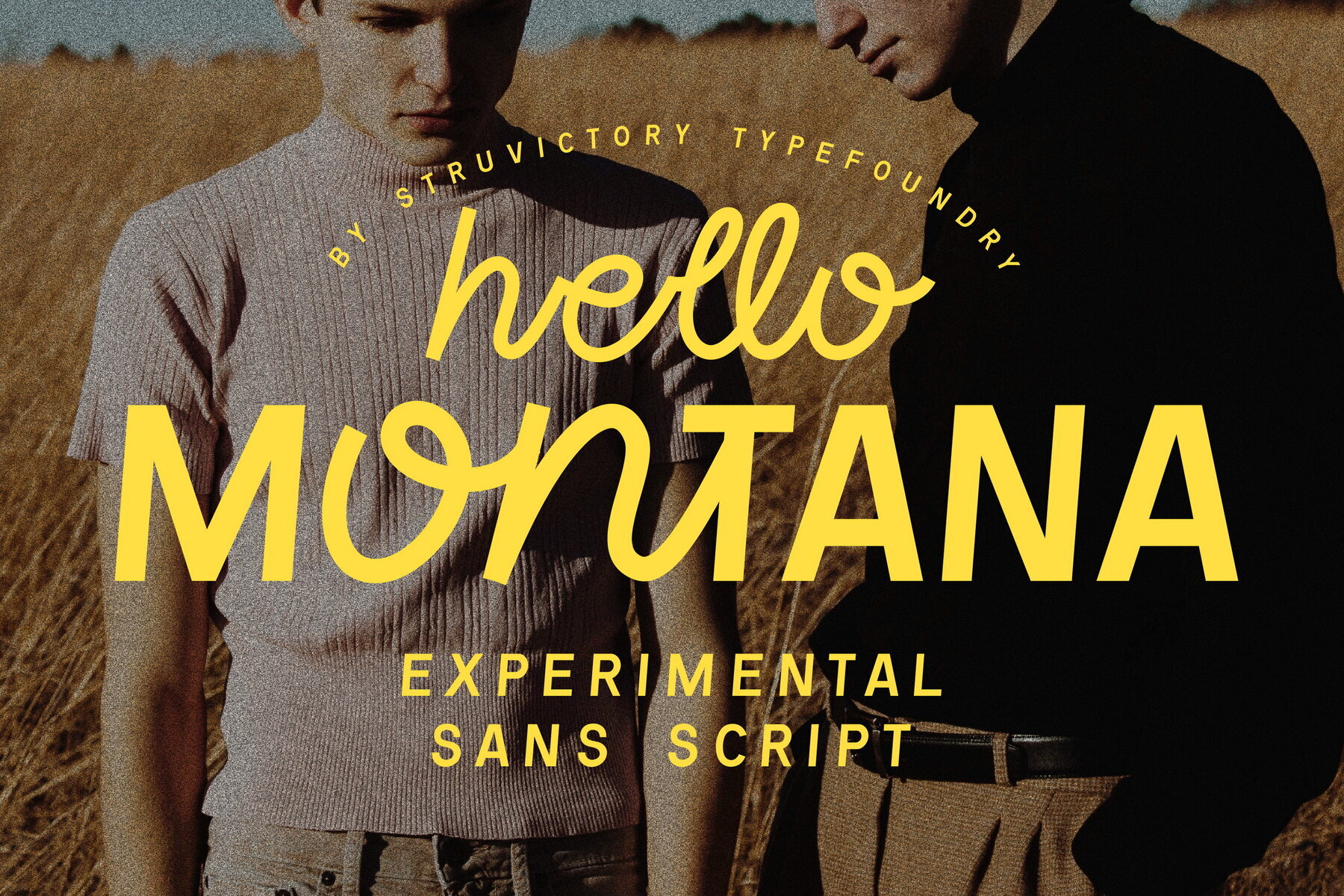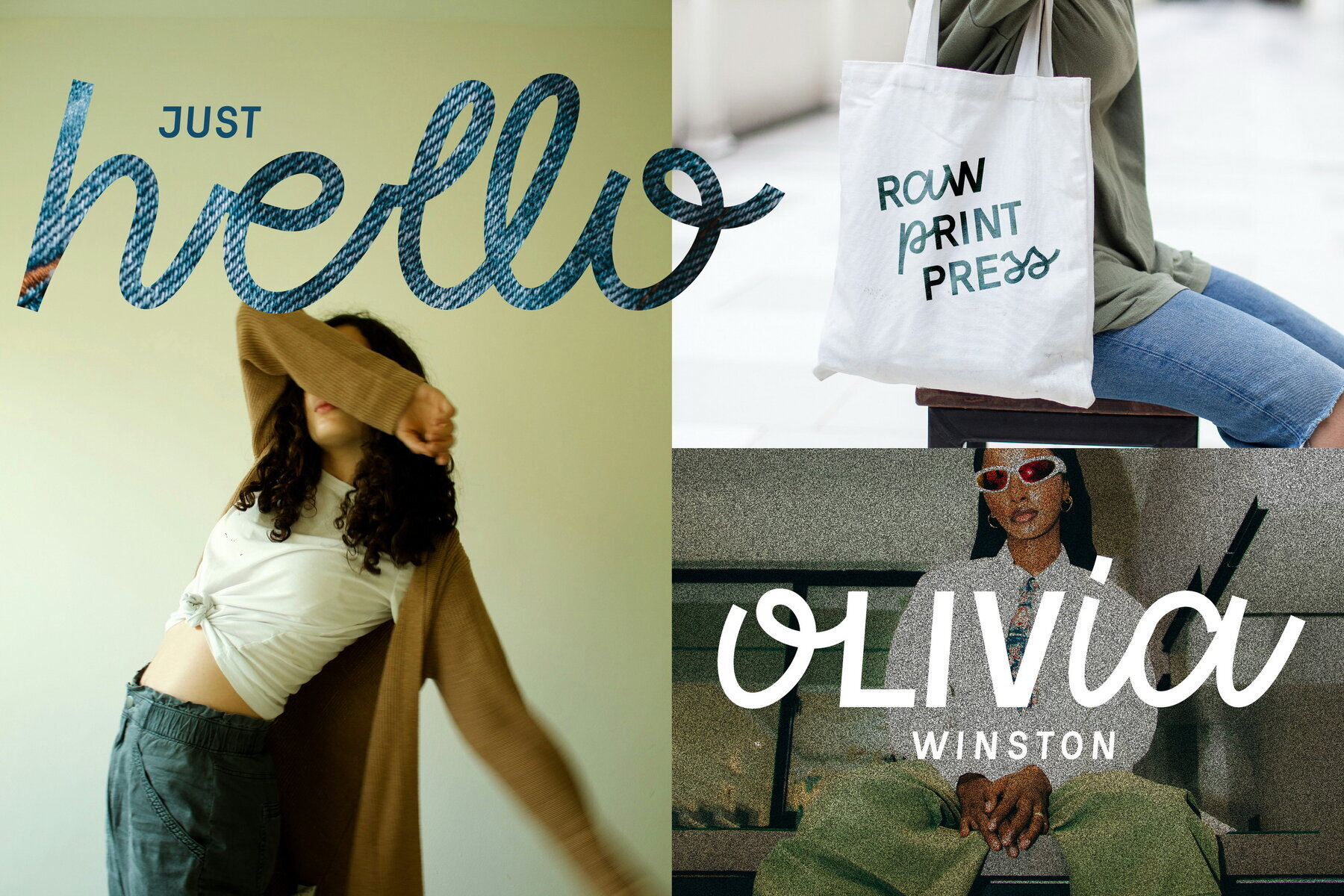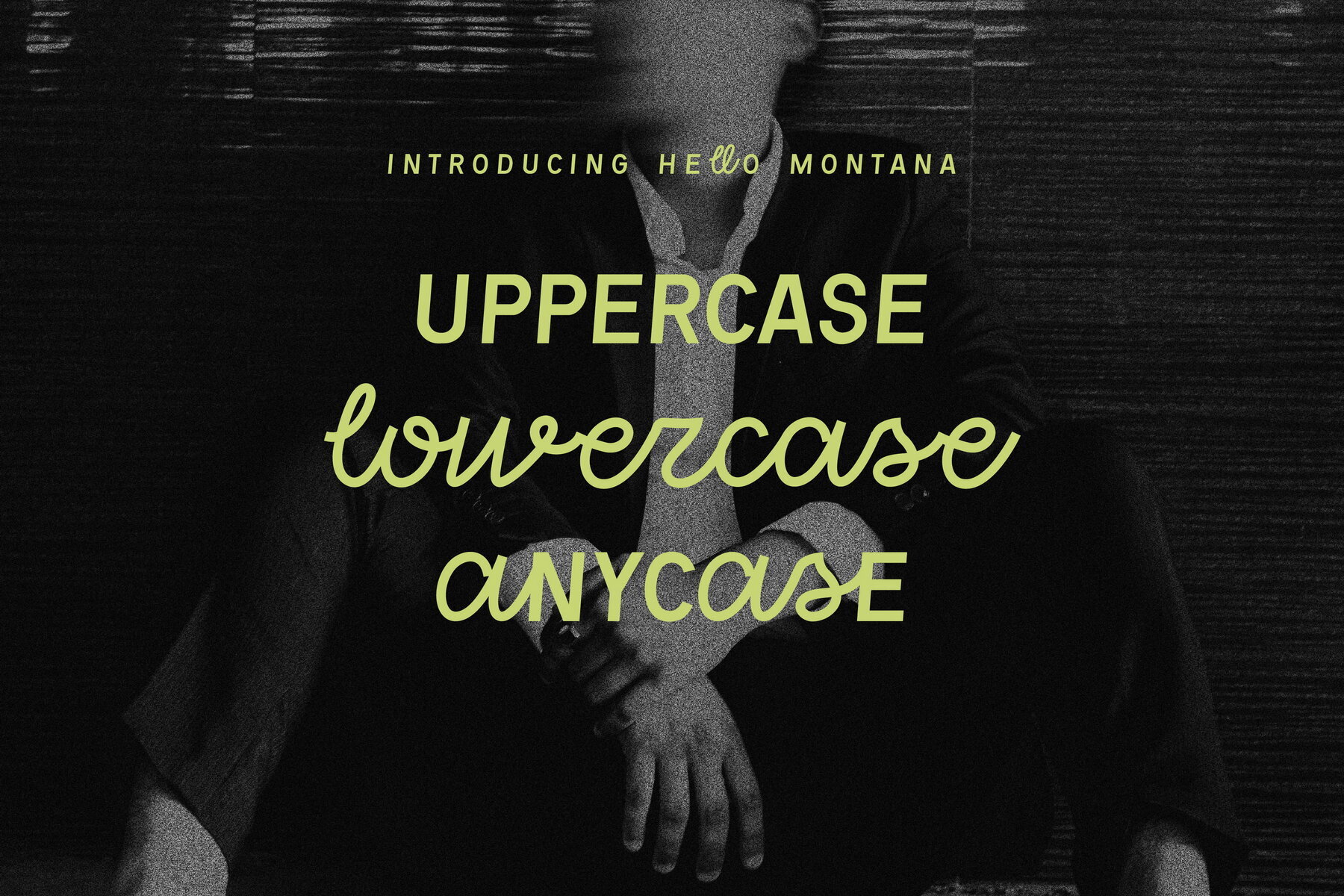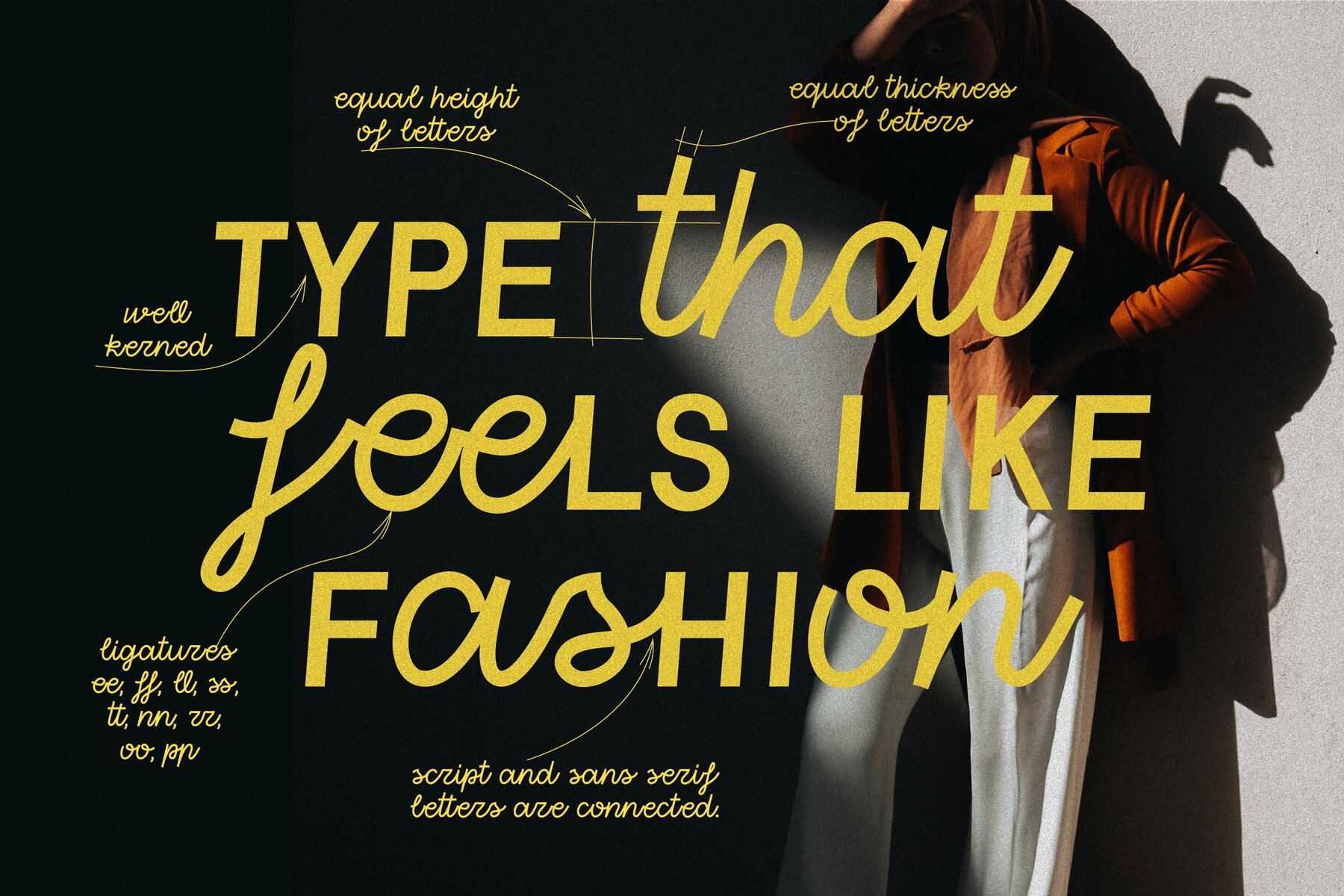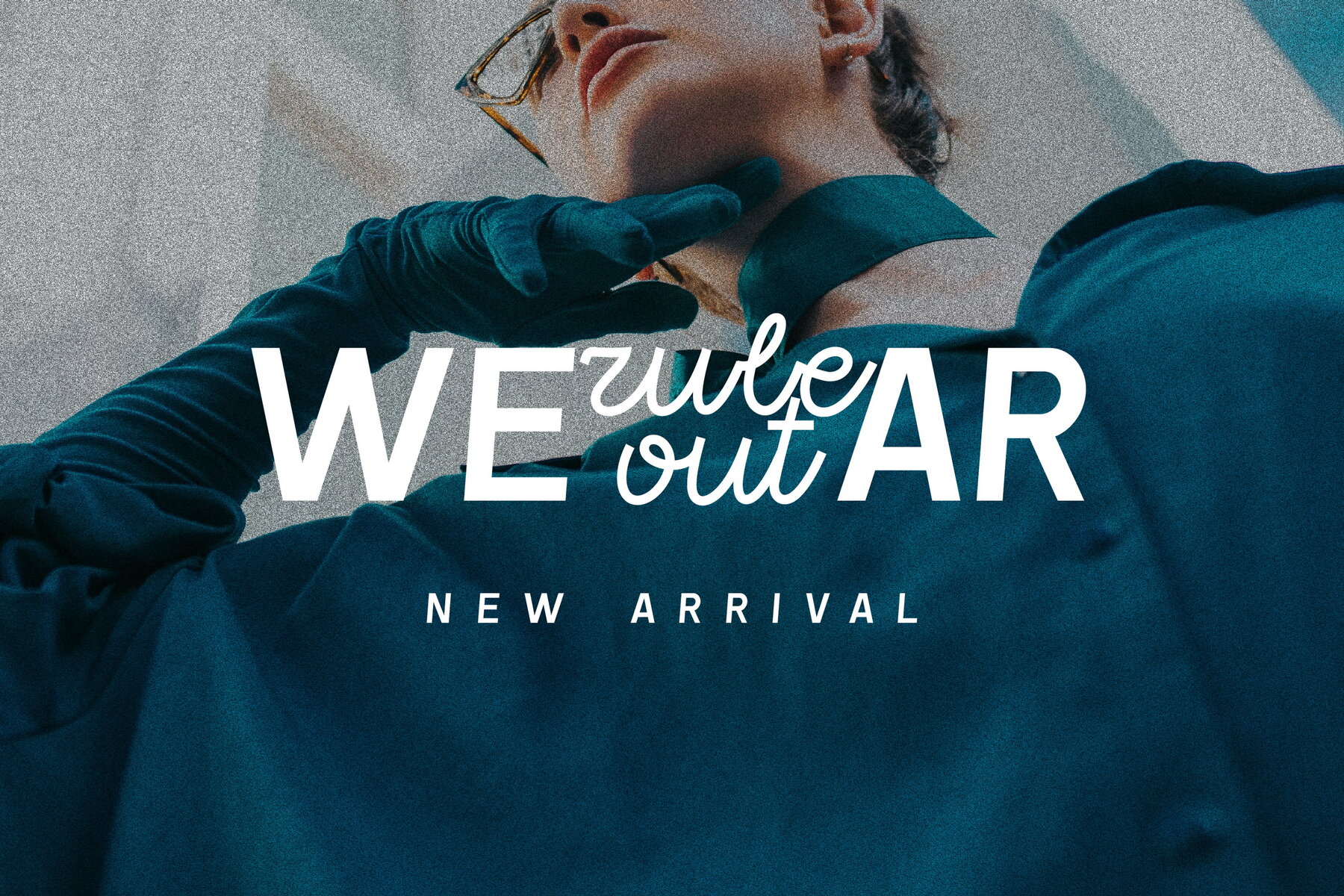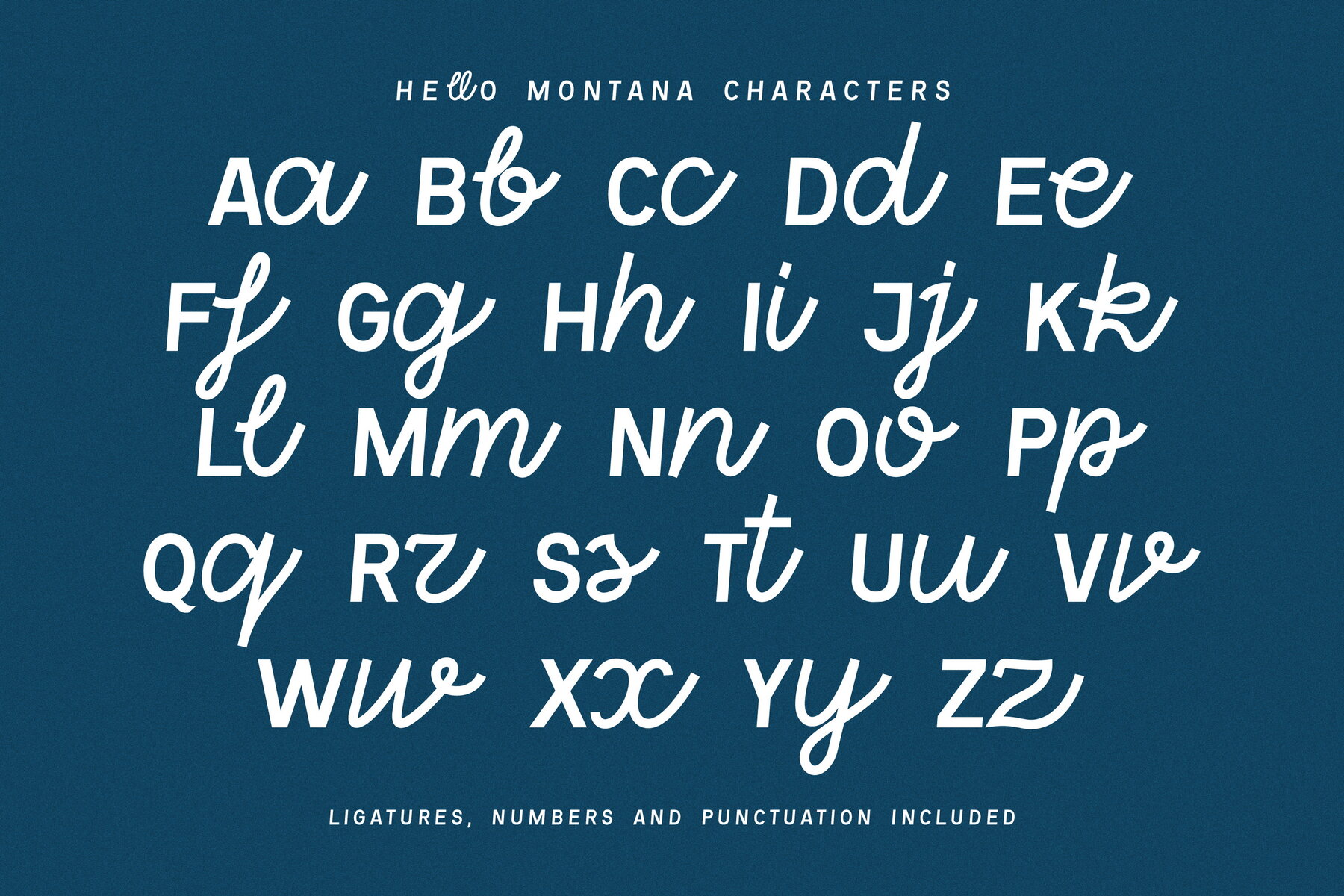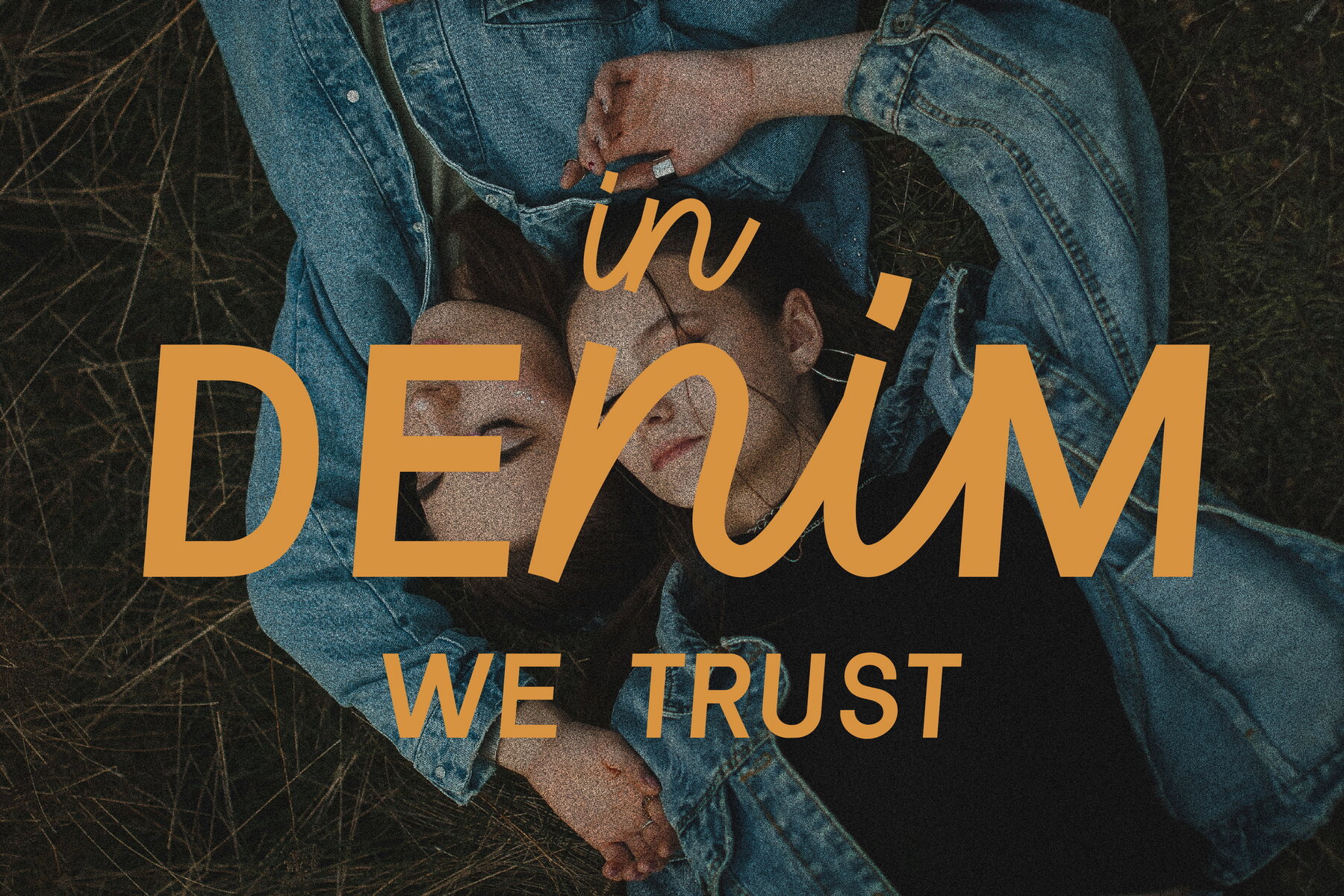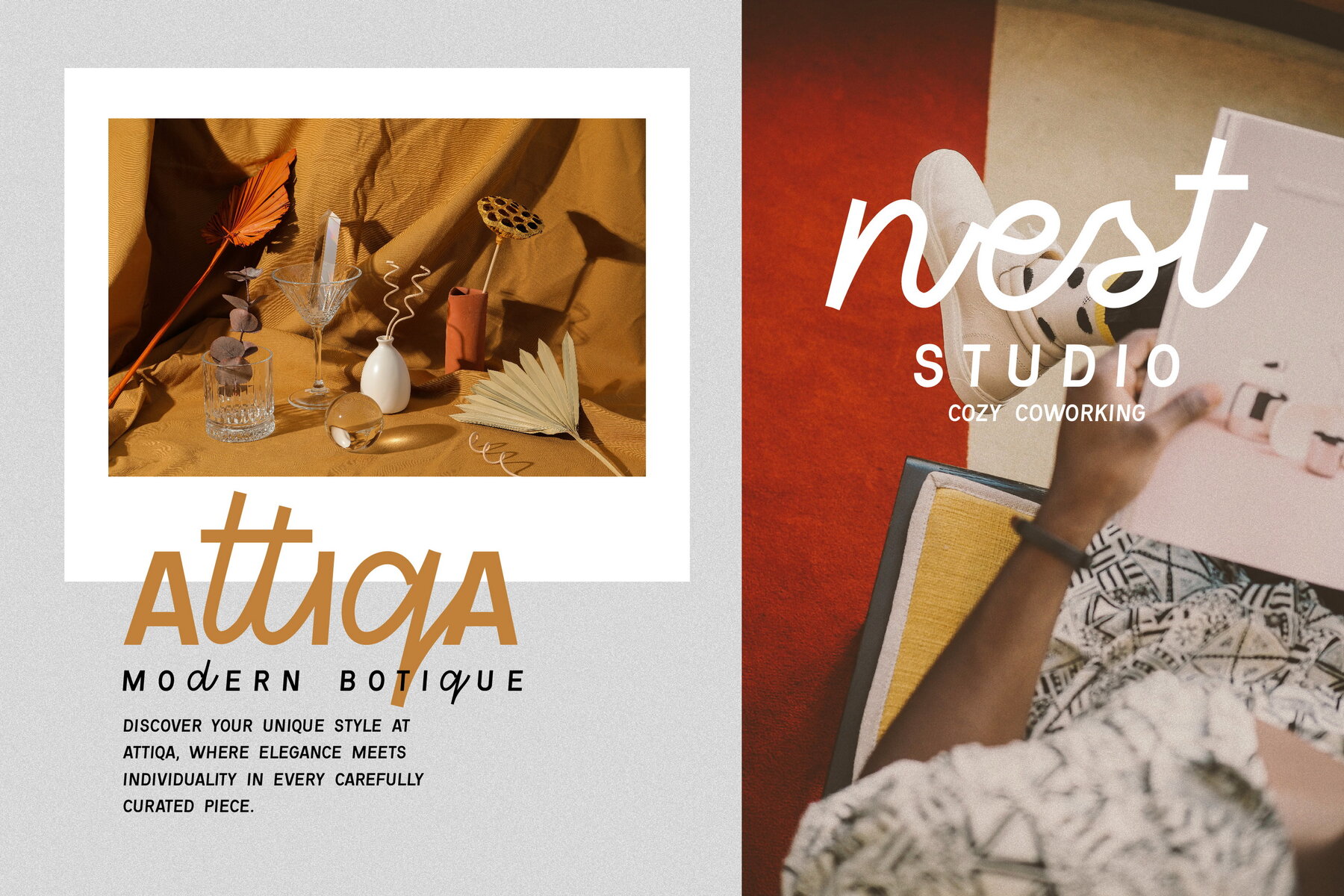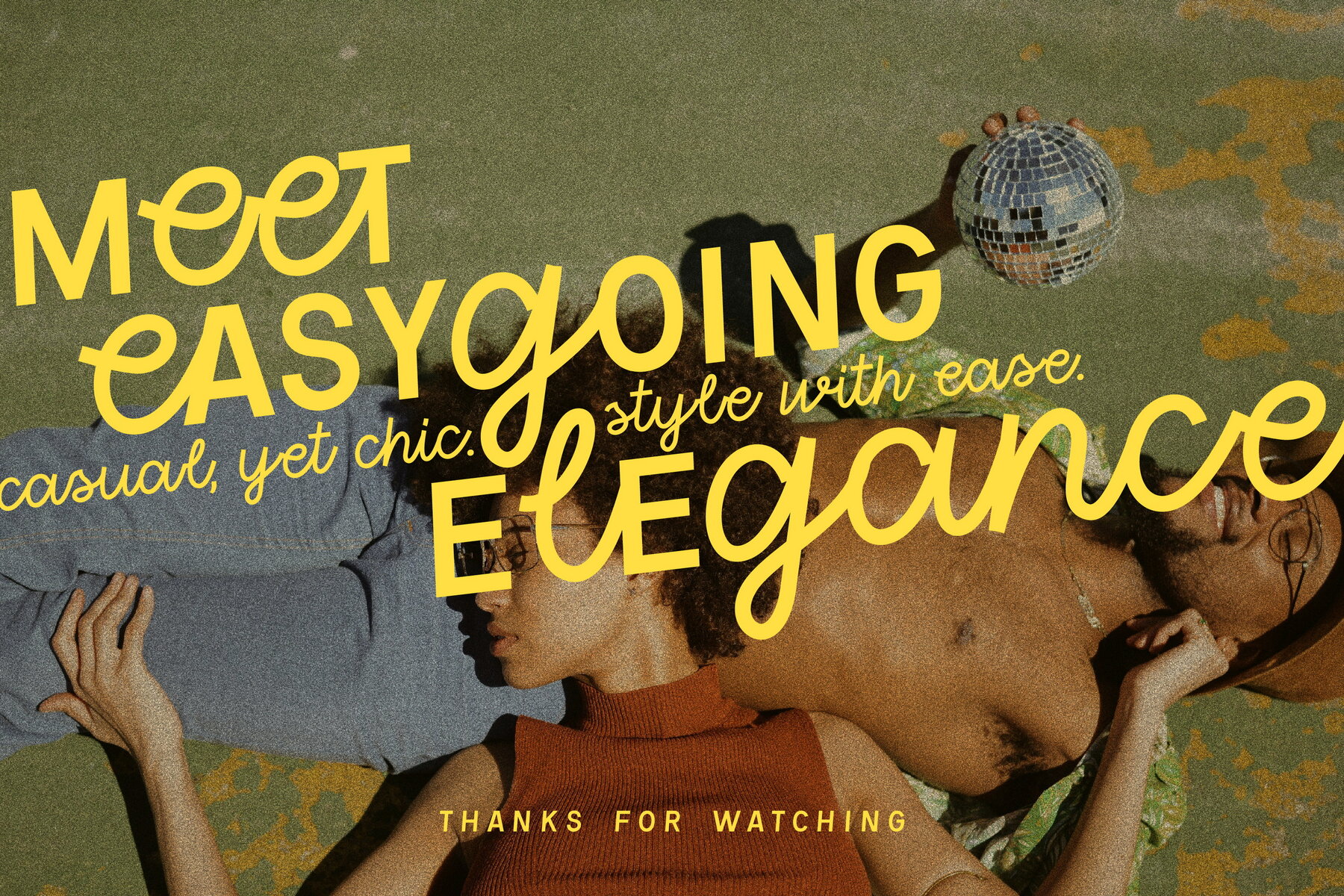
Hello Montana: Dynamic Semi-Sans Script Font
Hello Montana uniquely combines style with character in an experimental design. This semi-sans script features bold uppercase alongside fluid handwritten lowercase, creating a modern and expressive contrast. Its organic curves and playful strokes make it suitable for fashion branding, editorial design, packaging, and creative campaigns. Hello Montana is ideal for crafting stylish logos or statement taglines, offering warmth, personality, and effortless elegance.
• Character Variety - Comes with numbers and well-kerned punctuation.
• Ligatures - Includes oo, tt, ff, ee, ll, nn, oo, pp, rr for cohesive text appearance.